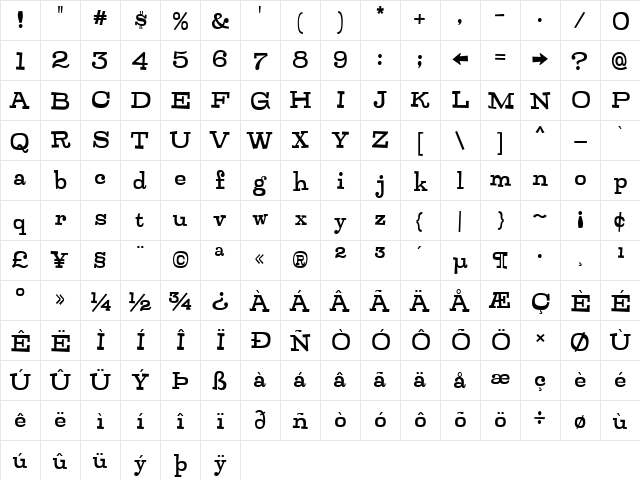
Zalderdash Regular
Design Context for Zalderdash Typeface
Zalderdash takes a measured approach to typography — its balanced proportions and neutral character make it a reliable workhorse for both digital and print work.